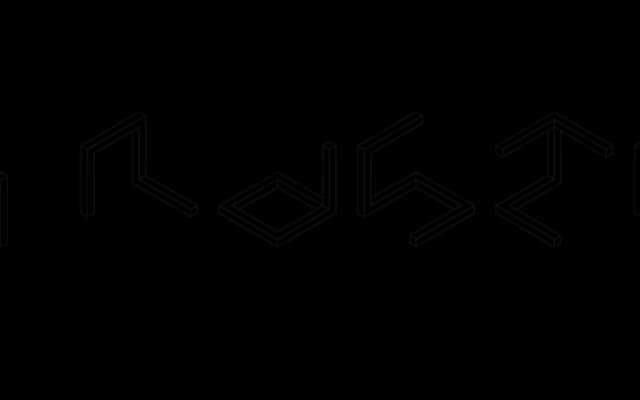
Sol
Radim Pesko · Radim Pesko
A typeface derived from Sol LeWitt's 1974 open cube variations, where each character is constructed from the spatial geometry of an incomplete cube.
Each letterform is built from the structural logic of Sol LeWitt's '122 variations on incomplete open cubes', treating the cube's spatial potential as a typographic system. Letters sit at the boundary of abstraction and legibility, asking the reader to complete the form in their imagination. The typeface is not available for purchase and has appeared in headlines for NYT Style.
Sol is a conceptual display typeface where each letterform is derived from the spatial geometry of an open cube, placing it firmly in experimental geometric display territory with abstract, constructed forms.